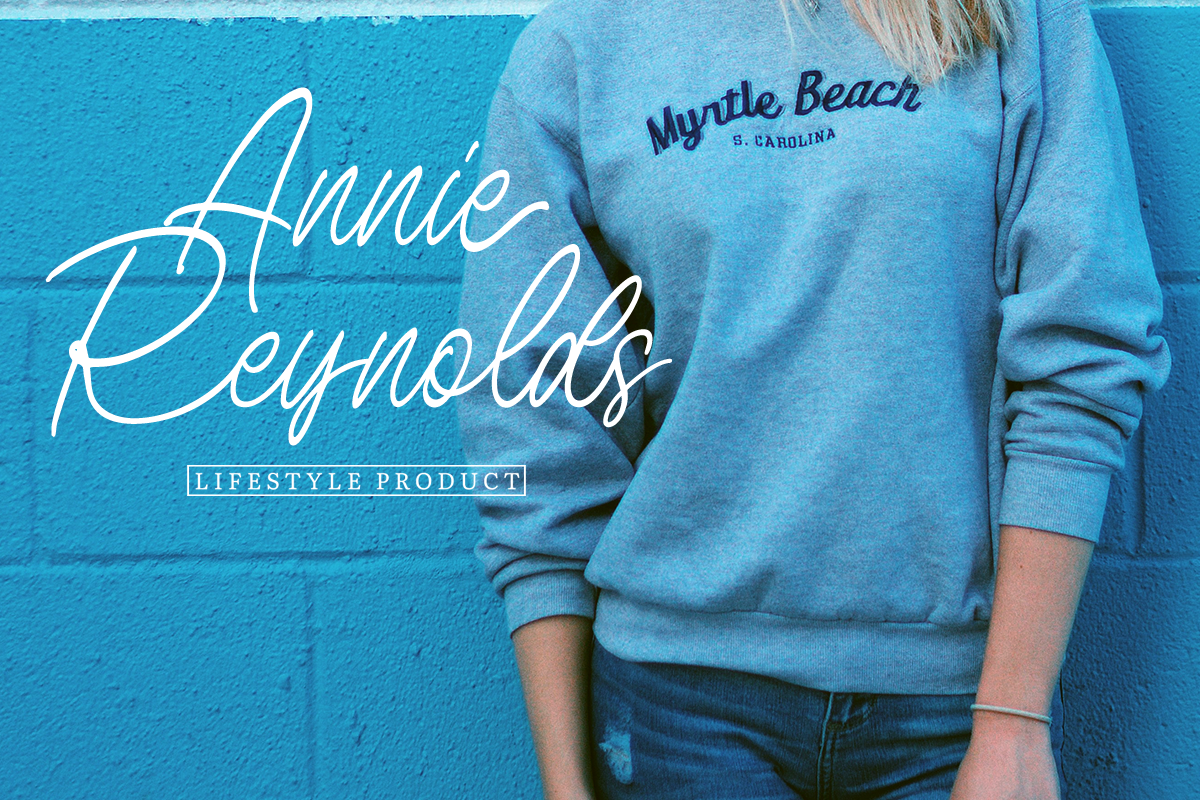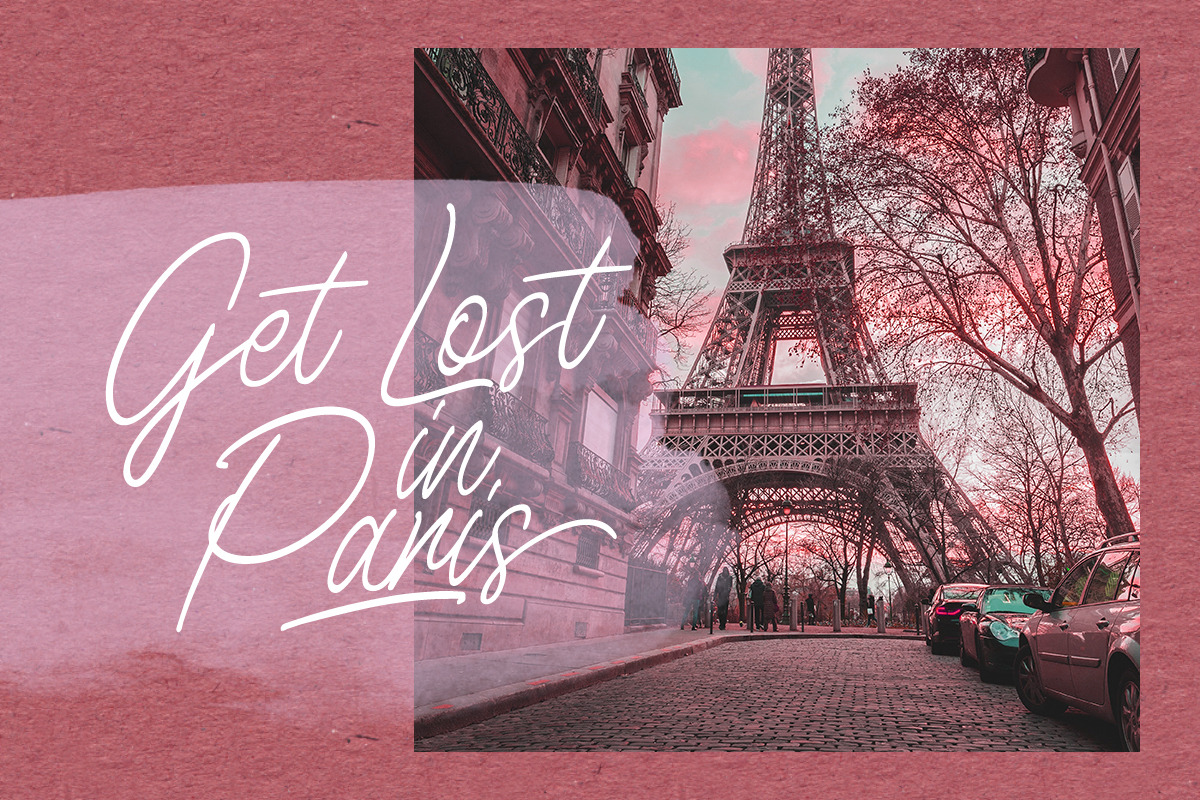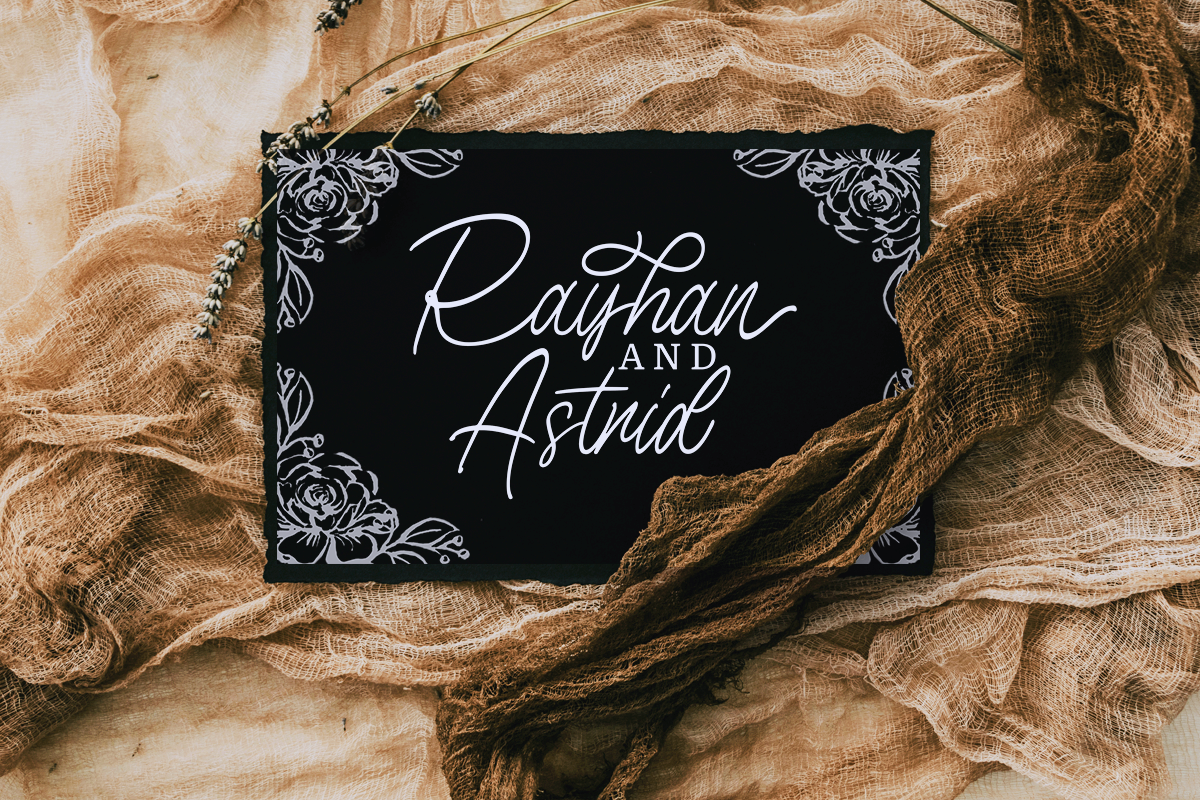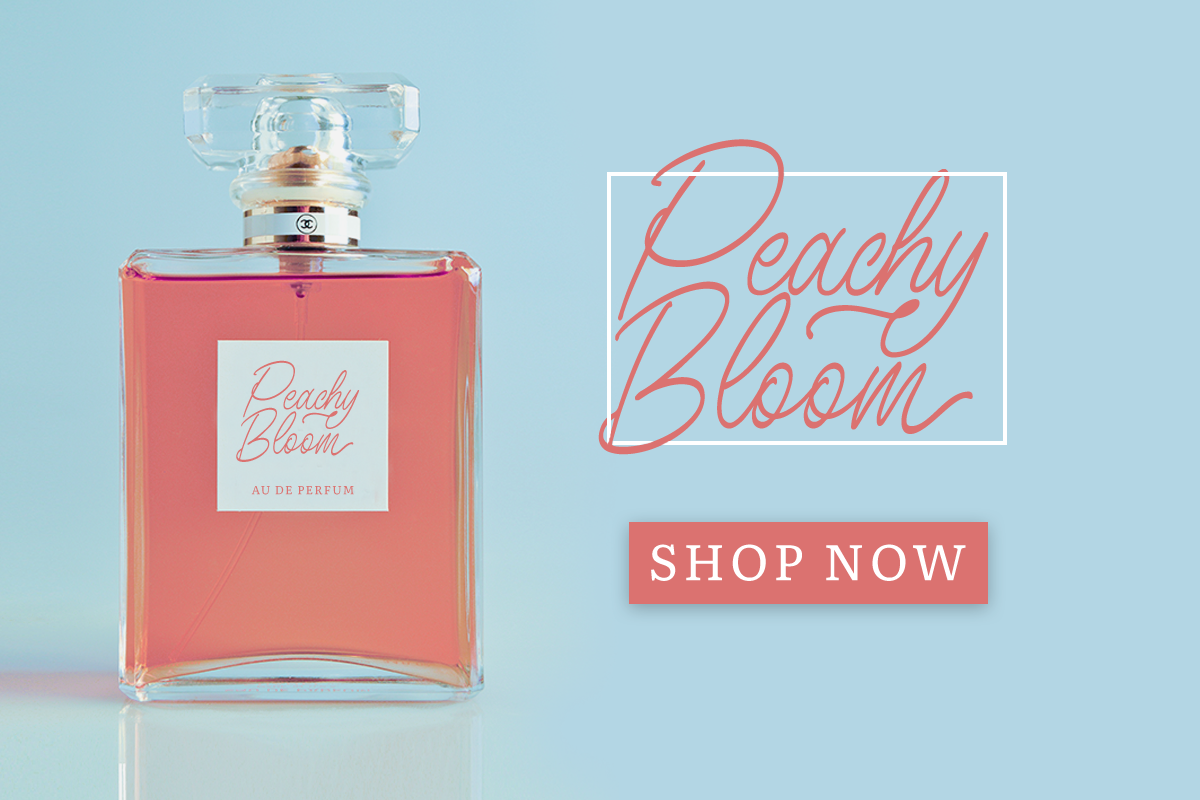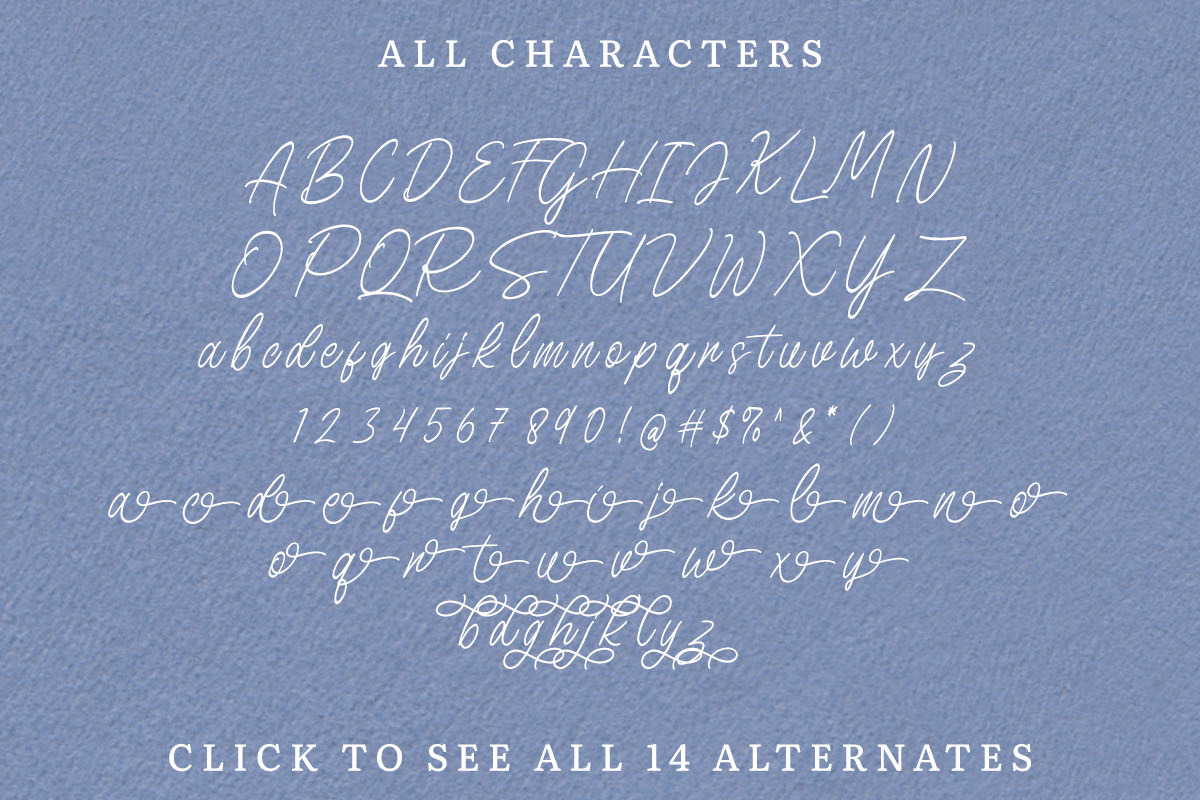
Birdspring Signature
introducing, Birdspring Signature. A Signature font that can meet your needs to make a handwriting that has strong characteristics. This font is perfect for use in branding, wedding invitations, packaging, and so on. This font also equipped with up to 14 ligatures that will make every word you writes more eye catching